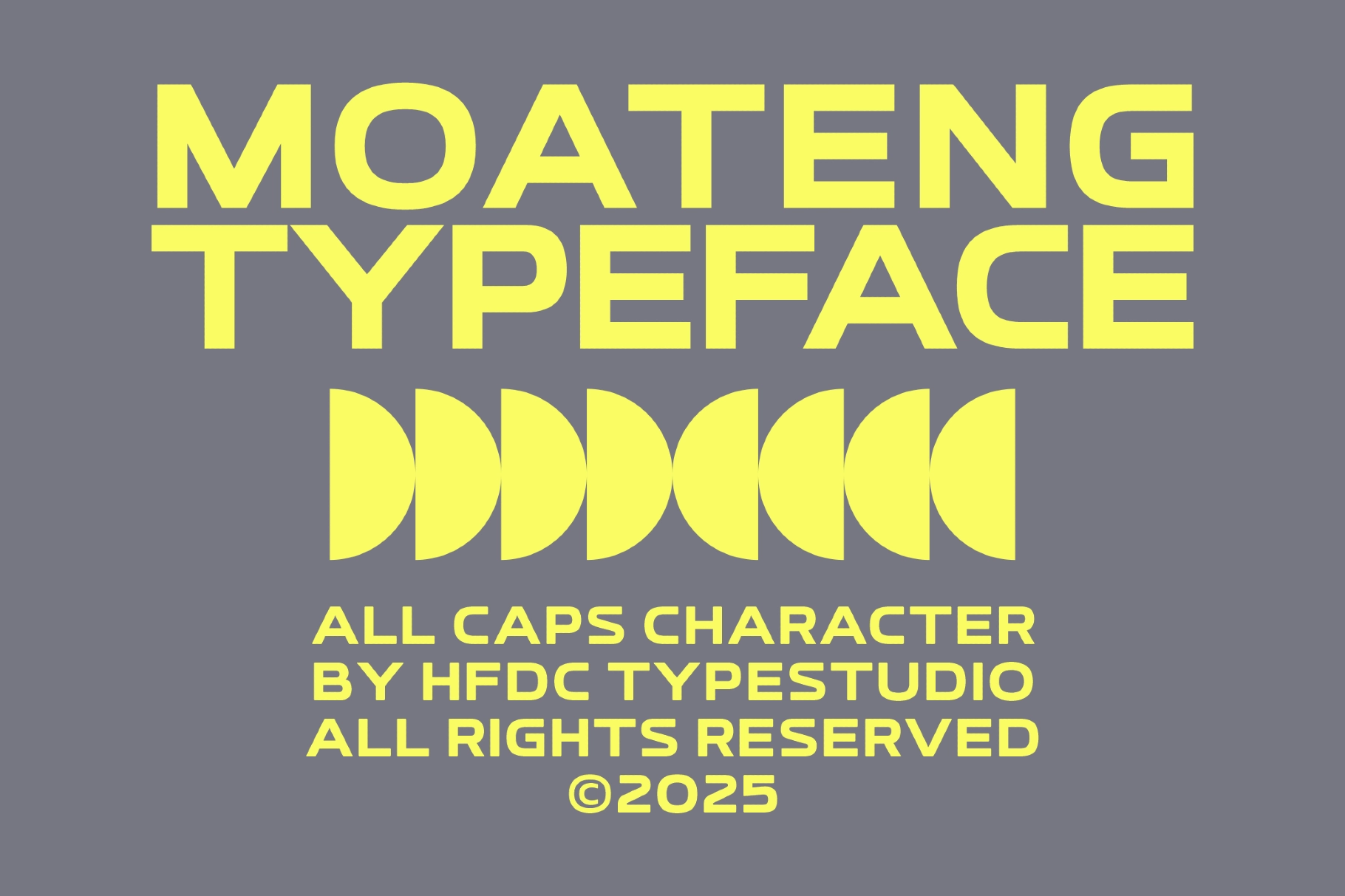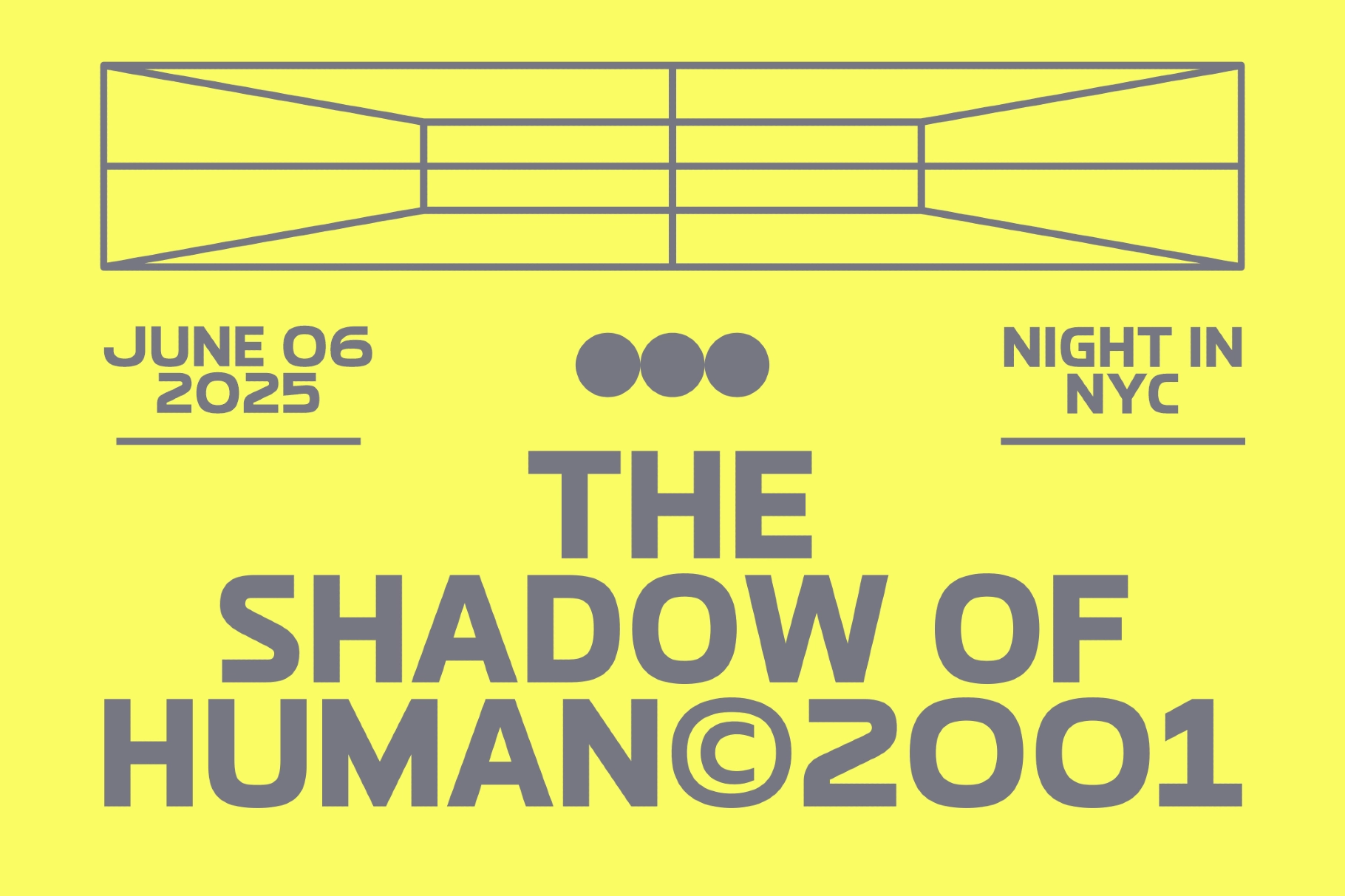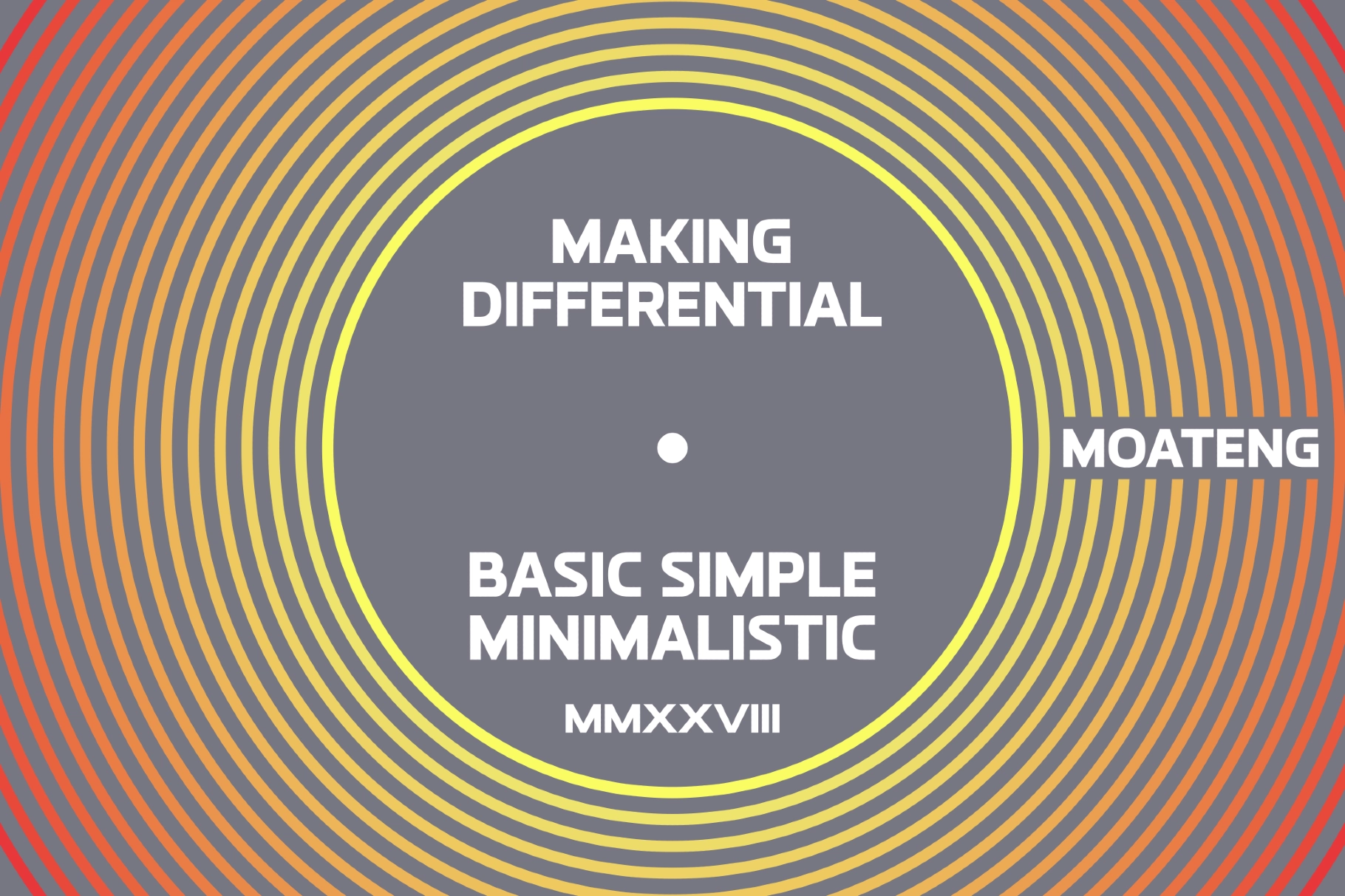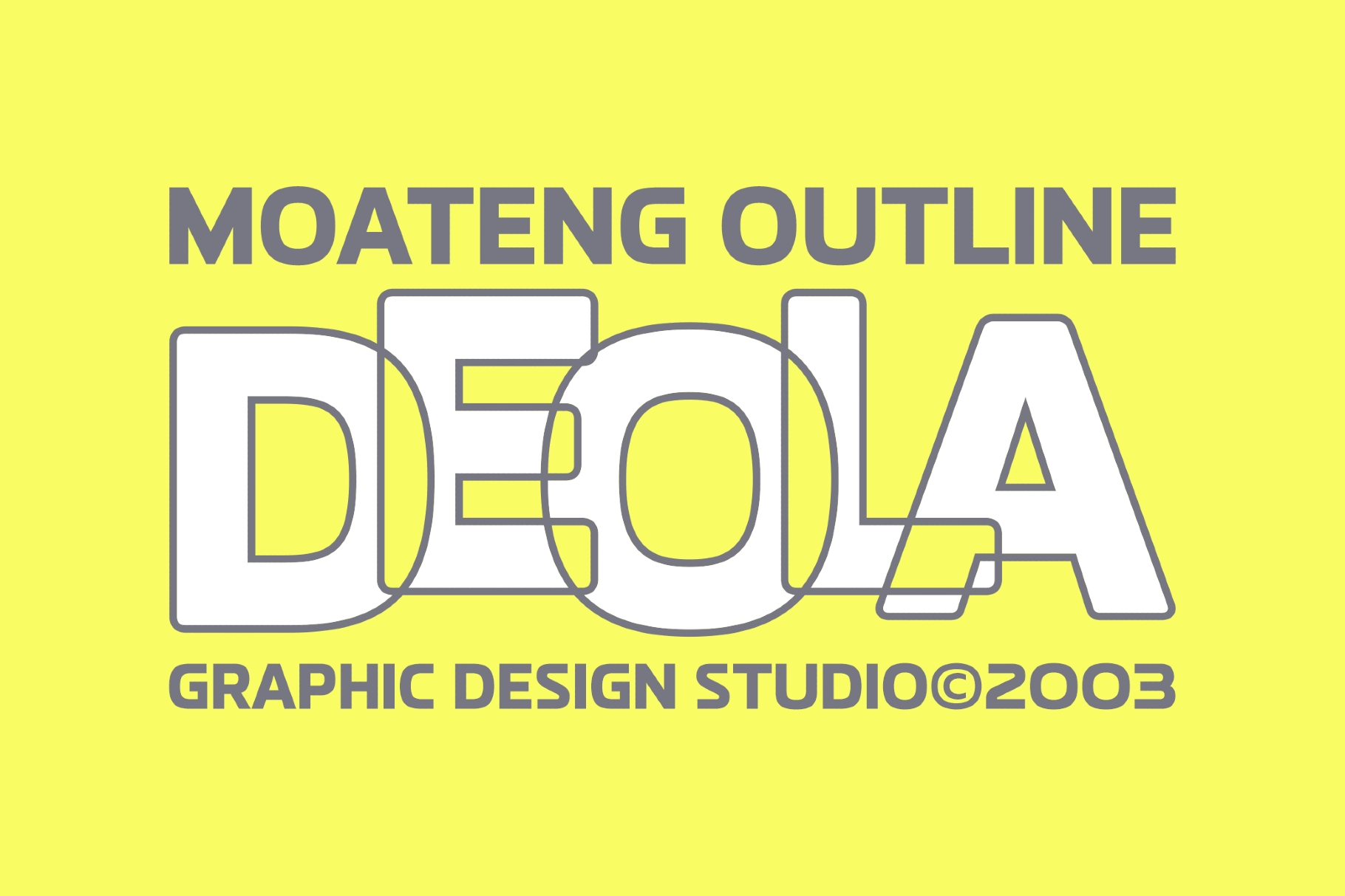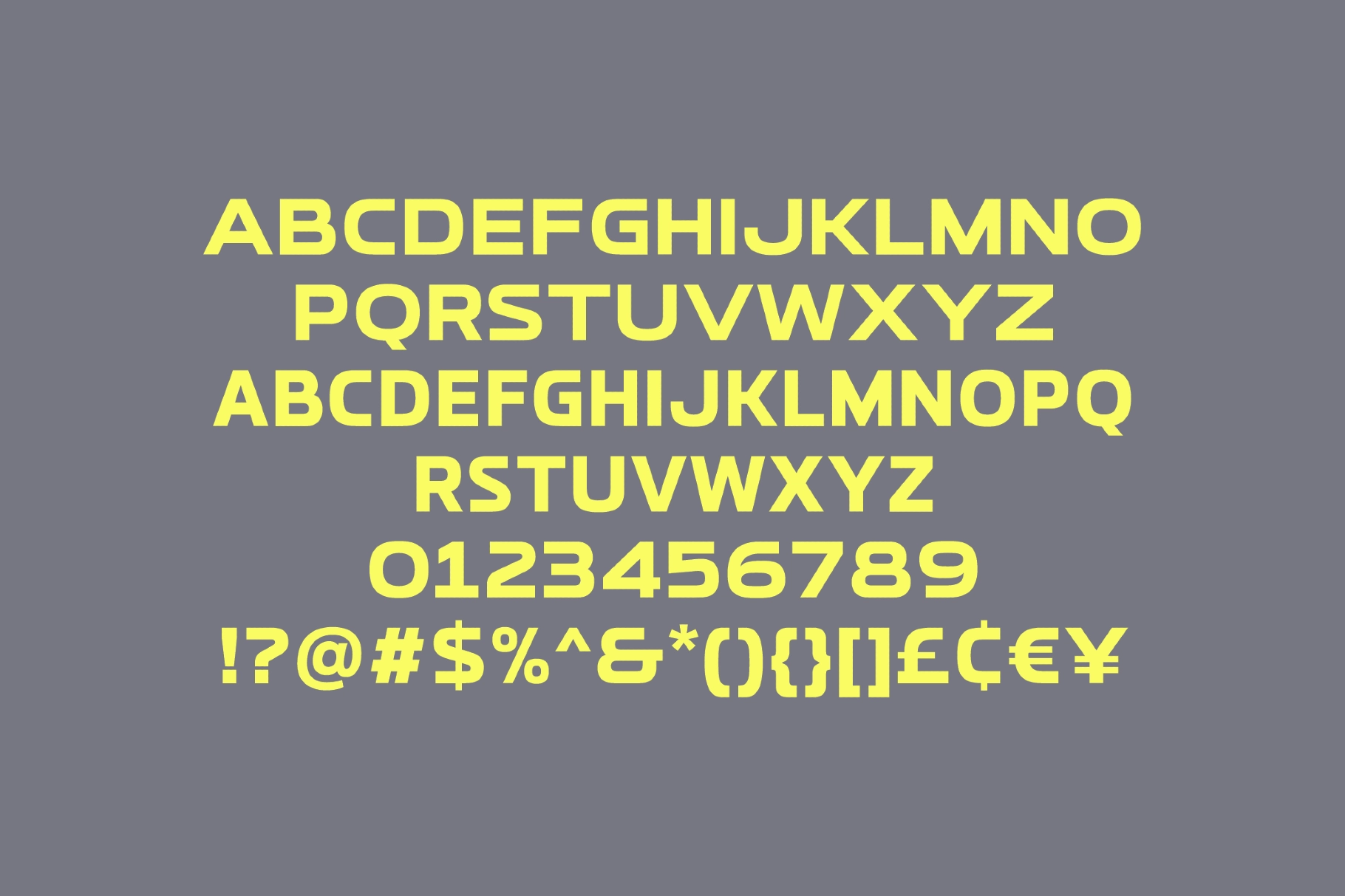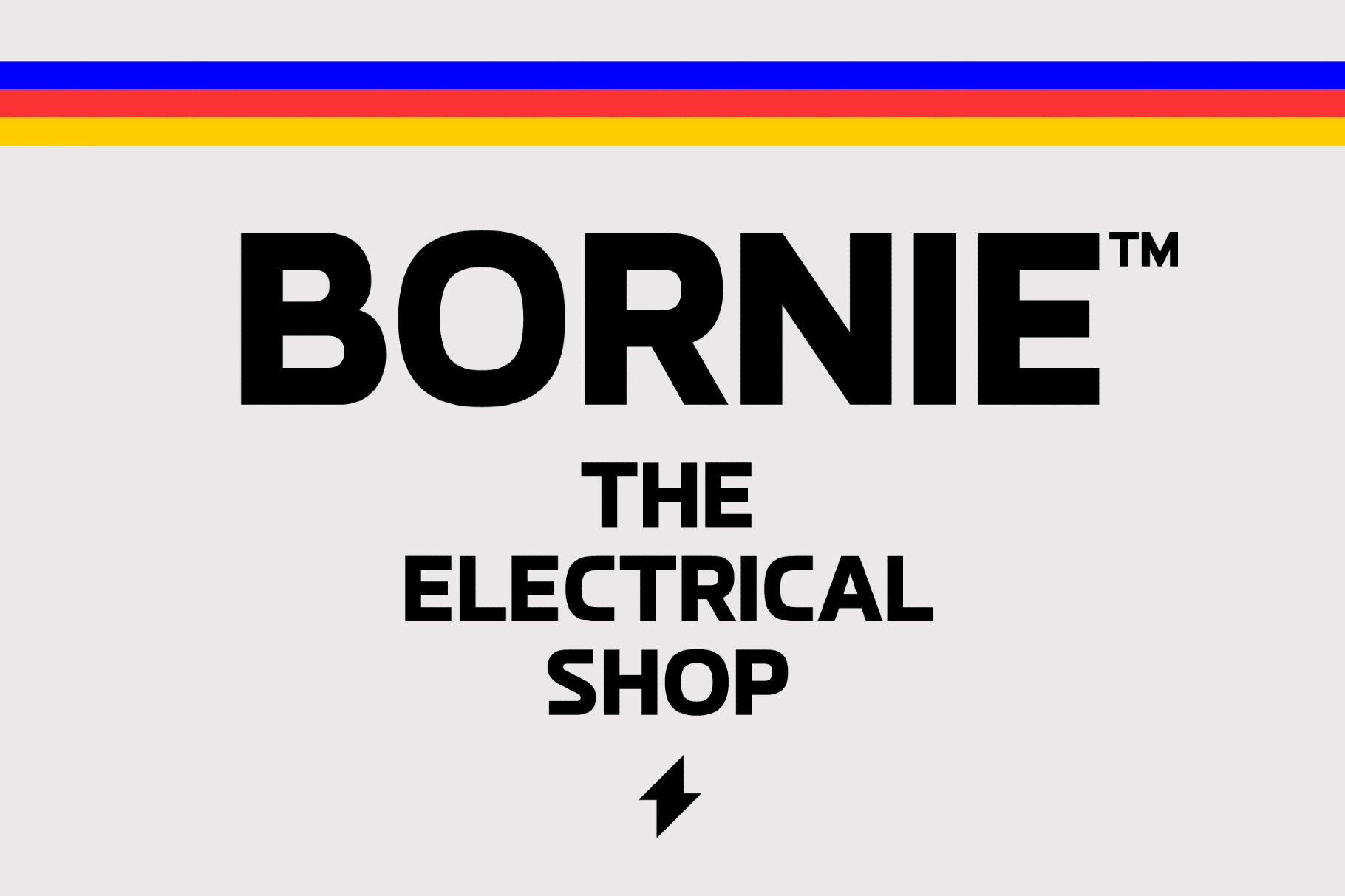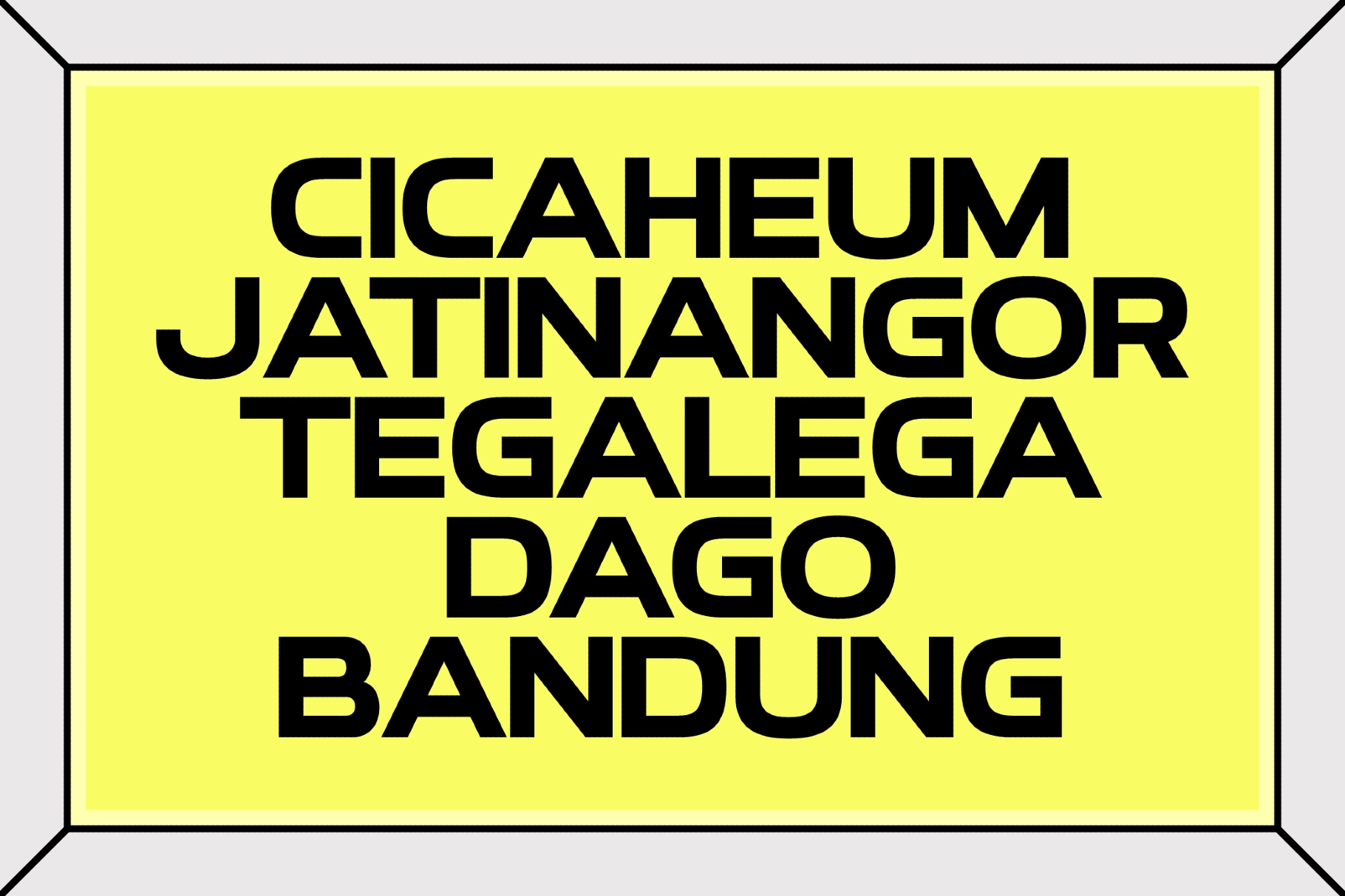
Moateng - Modern All Caps Display Font
Moateng - Modern All Caps Display Font is a bold and contemporary typeface built entirely in uppercase, designed to deliver strong visual impact with clean, confident letterforms. With its geometric structure and modern proportions, Moateng brings clarity and power to headlines, branding, and statement typography. This versatile display font includes three distinct styles: Normal for solid and commanding compositions, Soft (Rounded) for a smoother and more approachable feel, and Outline for a layered, creative, and eye-catching effect. The combination of these styles allows designers to experiment with contrast and depth across a wide range of visual projects.
Ideal for logos and branding, posters, headlines, album covers, merchandise, retro-futuristic themes, social media graphics, and typography art, Moateng offers consistent shapes and strong character presence that make any design stand out with modern energy and versatility.